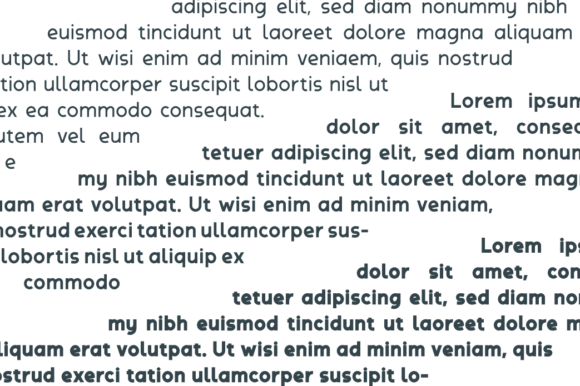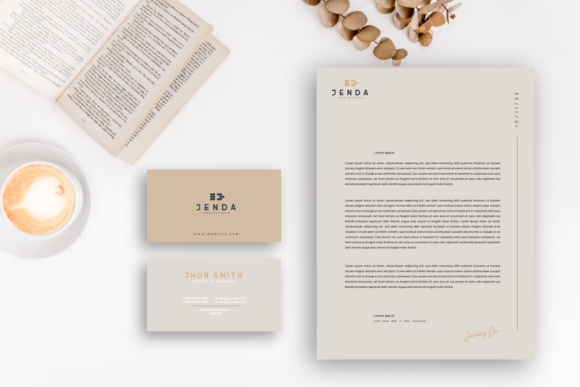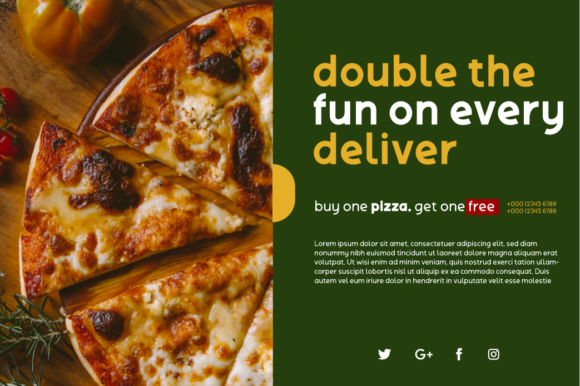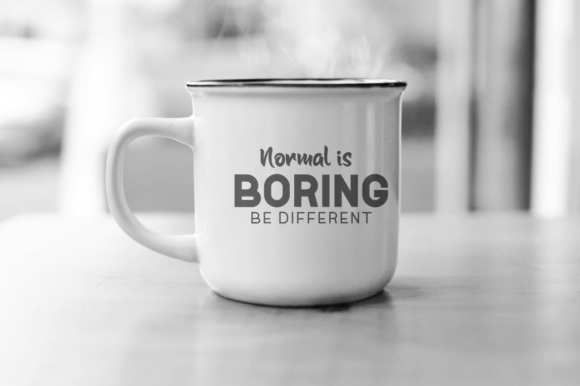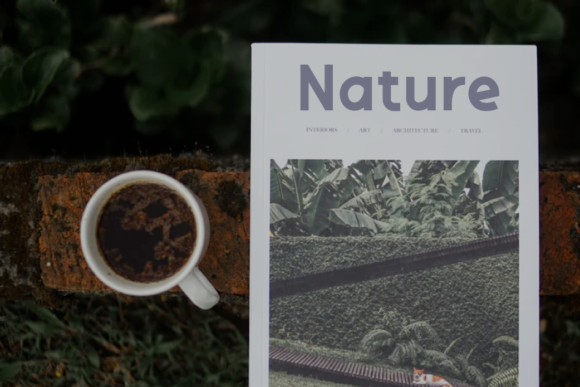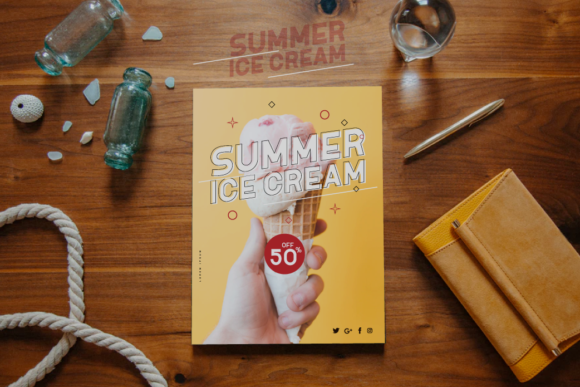
That’s where the Bosan Font comes in – a casual sans serif font designed to breathe life into your most innovative ideas. Its purpose is simple: to make your designs stand out and connect with your audience on a deeper level. By incorporating the Bosan Font into your work, you can elevate your creative vision and leave a lasting impression.
For designers, the Bosan Font is a valuable asset in their toolkit. Its versatility and modern feel make it perfect for a wide range of projects, from digital products to print materials. With the Bosan Font, you can trust that your ideas will be presented in the best possible light, and that’s a game-changer.
Bosan Font Key Features
- Font Family: Bosan is a sans-serif font family designed for digital use, making it ideal for web and mobile applications.
- Font Size: Bosan font comes in 8 font sizes, ranging from 8pt to 72pt, catering to various design requirements.
- Resolution: Optimized for high-resolution displays, ensuring crisp and clear text rendering on modern devices.
- Unique Characteristics: Bosan’s distinctive features include a clean and modern design aesthetic, precise stroke endings, and a balanced x-height, making it suitable for body text and headings.
- Language Support: Bosan font supports multiple languages, including Latin, Cyrillic, and Greek scripts, making it a versatile choice for global applications.
Bosan Font Review
When I first saw the Bosan font, I was intrigued by its unique and quirky design. ✨ The font’s blend of modern and traditional elements caught my eye, and I was excited to dive in and see how it would work in real-world applications.
- The font’s versatility is one of its strongest suits. ✨ It can be used for a wide range of projects, from logos and branding to body text and headings.
- The Bosan font is highly customizable, allowing users to tweak the style to fit their specific needs. ✨ This is particularly useful for designers who want to create a consistent look and feel across their brand.
- The font’s unique design elements, such as its geometric shapes and organic lines, add a touch of sophistication and elegance to any project. ✨
- One of the main limitations of the Bosan font is its limited legibility at small font sizes. ⚠️ This can make it difficult to read in certain contexts, such as in small body text or on mobile devices.
- The font’s unique design elements can also be a double-edged sword. ⚠️ While they add visual interest and sophistication, they can also be overwhelming or distracting if not used thoughtfully.
Overall, I would say that the Bosan font is a solid choice for designers who want to add a touch of personality and whimsy to their projects. While it may have some limitations, its versatility and customizability make it a valuable tool in any designer’s arsenal.
Getting the Most Out of Bosan Font
For best results, use the Bosan Font in conjunction with high-contrast backgrounds and bold, colorful designs. This font is ideal for creative, eye-catching headings and titles.
The Bosan Font is suitable for a variety of applications, including:
- Graphic design
- Web design
- Print materials (business cards, brochures, etc.)
- Use the Bosan Font for the title, emphasizing the destination and evoking a sense of adventure.
- Combine the Bosan Font with distressed textures and watercolor effects to create a vintage look.